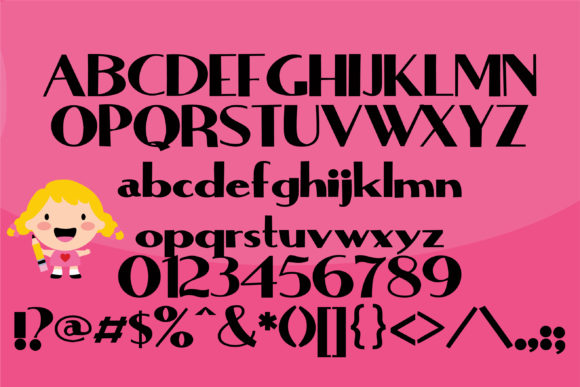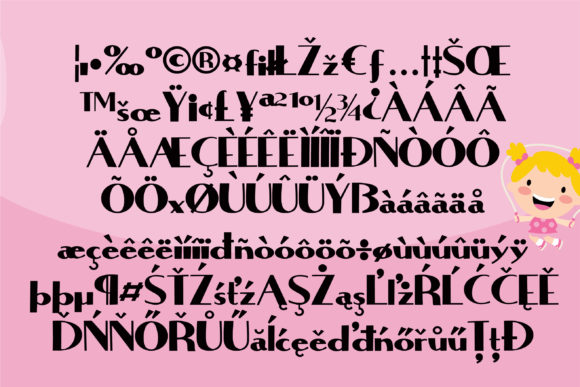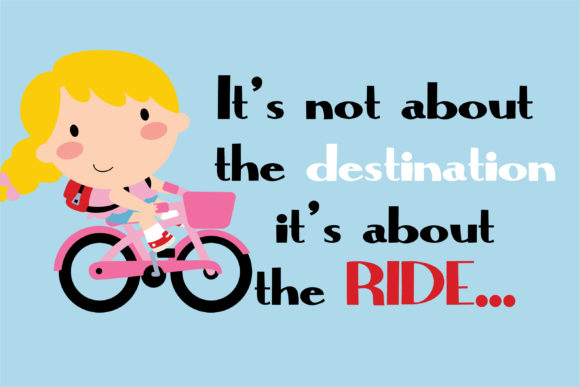
Introduction to Golly Gee Whiz Font
This fun sans serif font has slight imperfections making it a tiny bit whimsical.
Key Features of Golly Gee Whiz Font